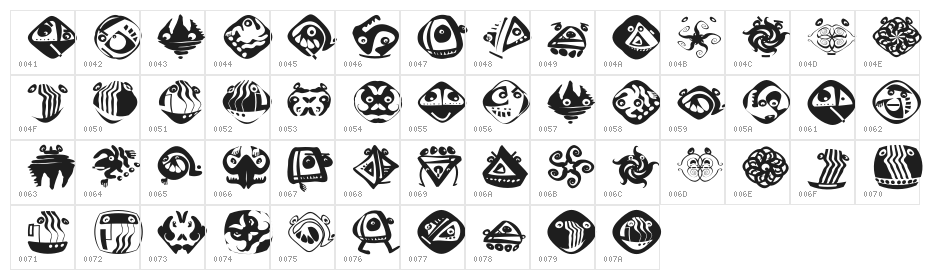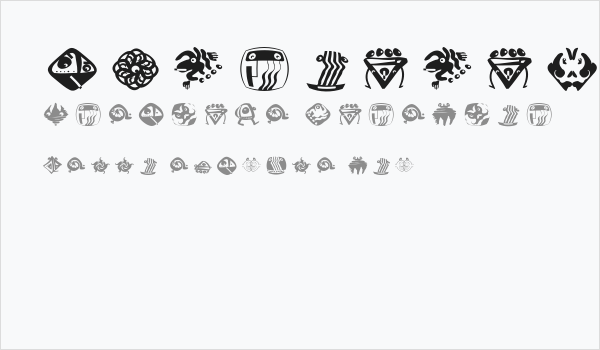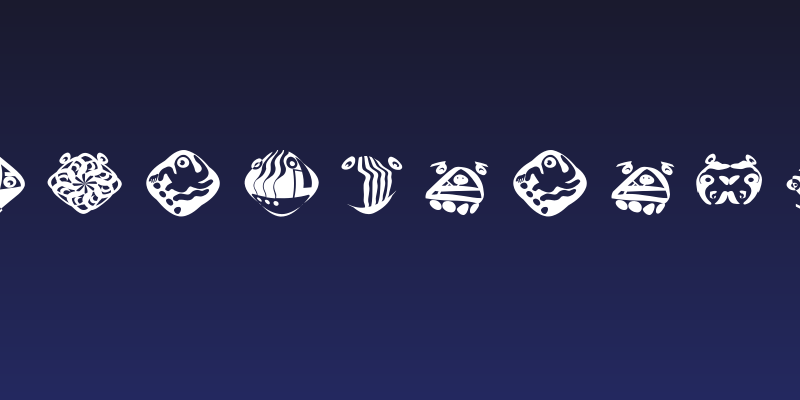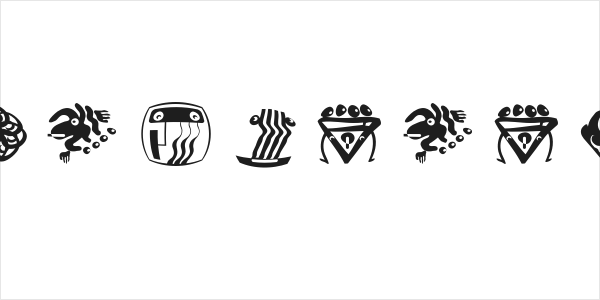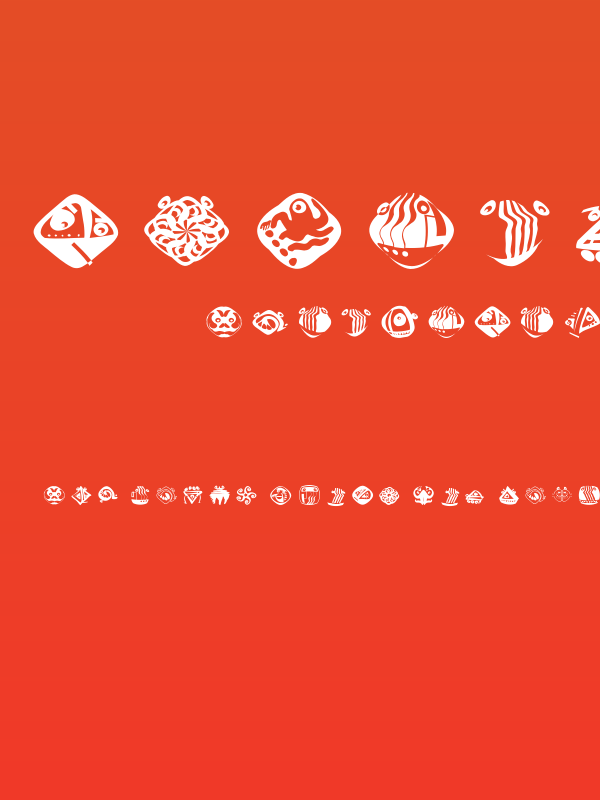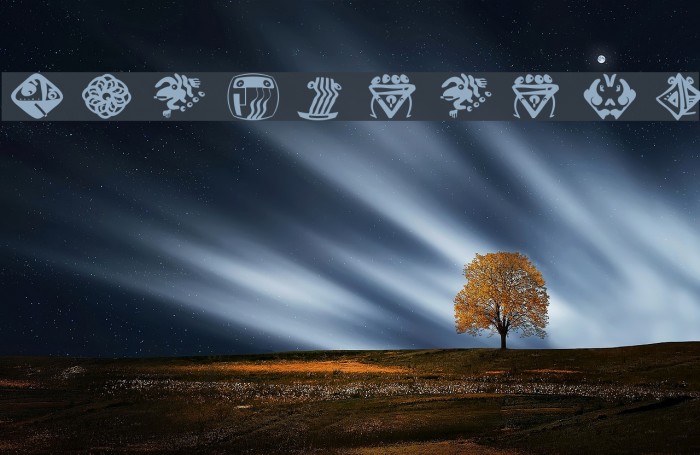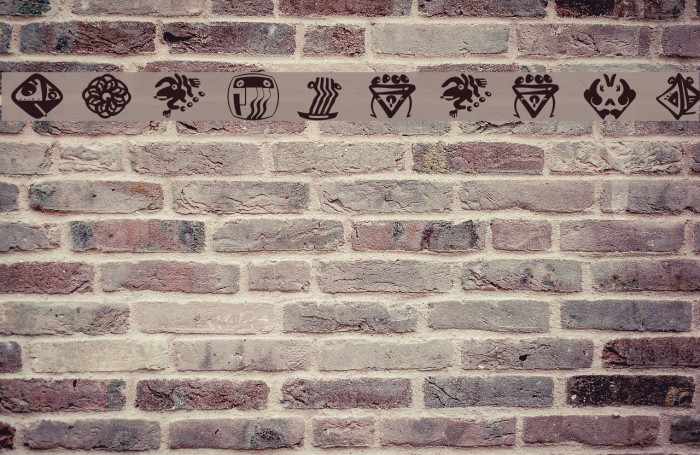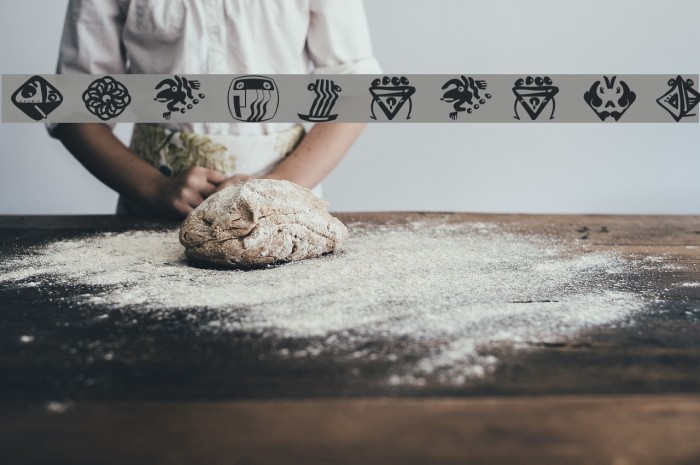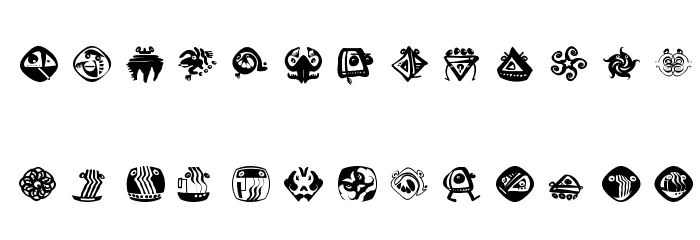
Androidish Font
Androidish Description
This font features a series of unique, abstract symbols that resemble playful, cartoonish creatures or icons. Each character is distinct, with intricate designs that incorporate various geometric shapes and whimsical patterns. The symbols are enclosed within circular or diamond-shaped borders, giving them a cohesive appearance. The style is highly decorative, with a focus on creativity and artistic expression. The bold, black-and-white contrast enhances the visibility of each symbol, making them stand out prominently. This font is not suitable for traditional text but serves as an artistic representation of characters.
| Use Case | Logos, Artistic designs, Illustrations |
| Proposed Projects | Ideal for creative projects such as logo design, branding for playful or artistic brands, children's book illustrations, or unique graphic design elements. |